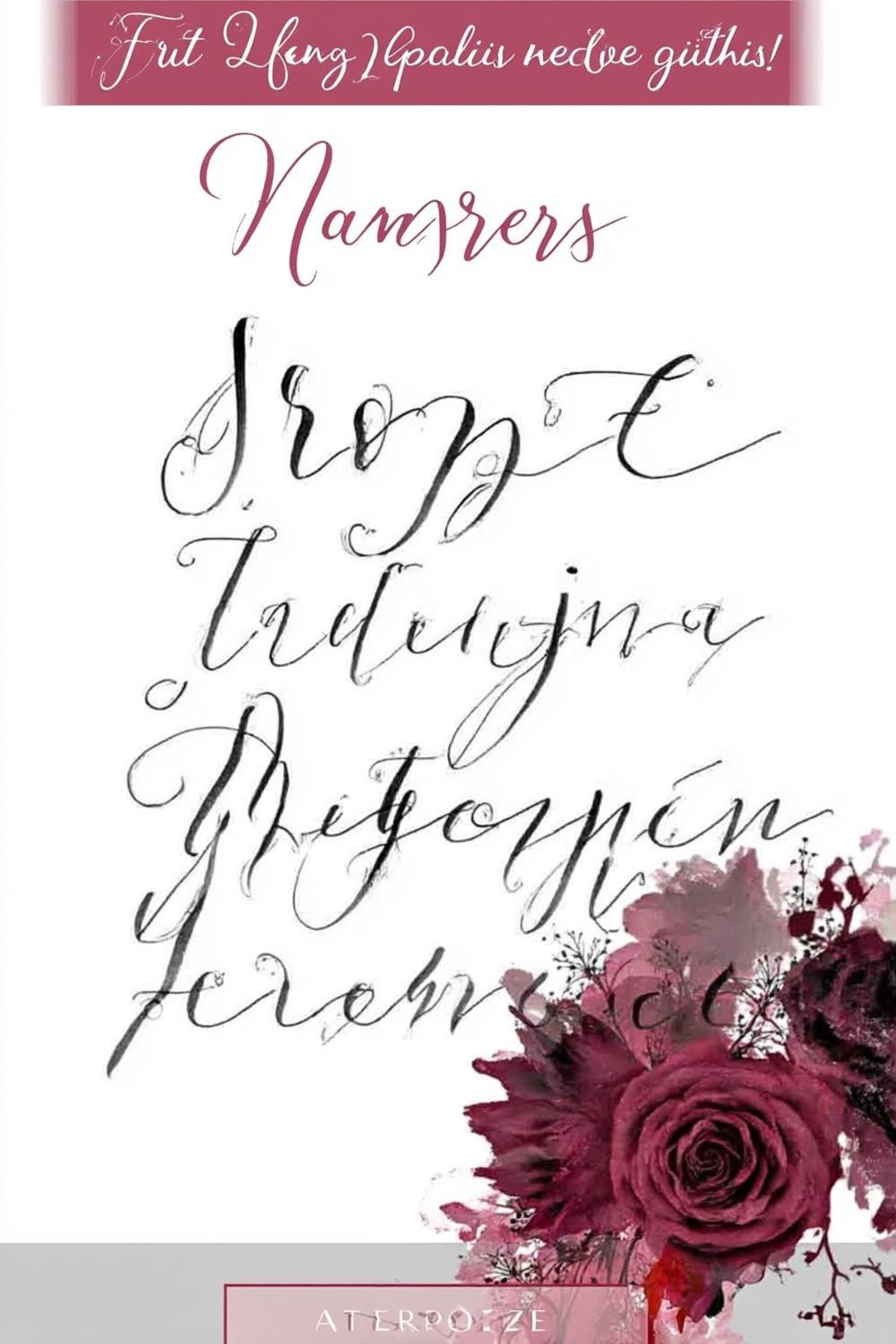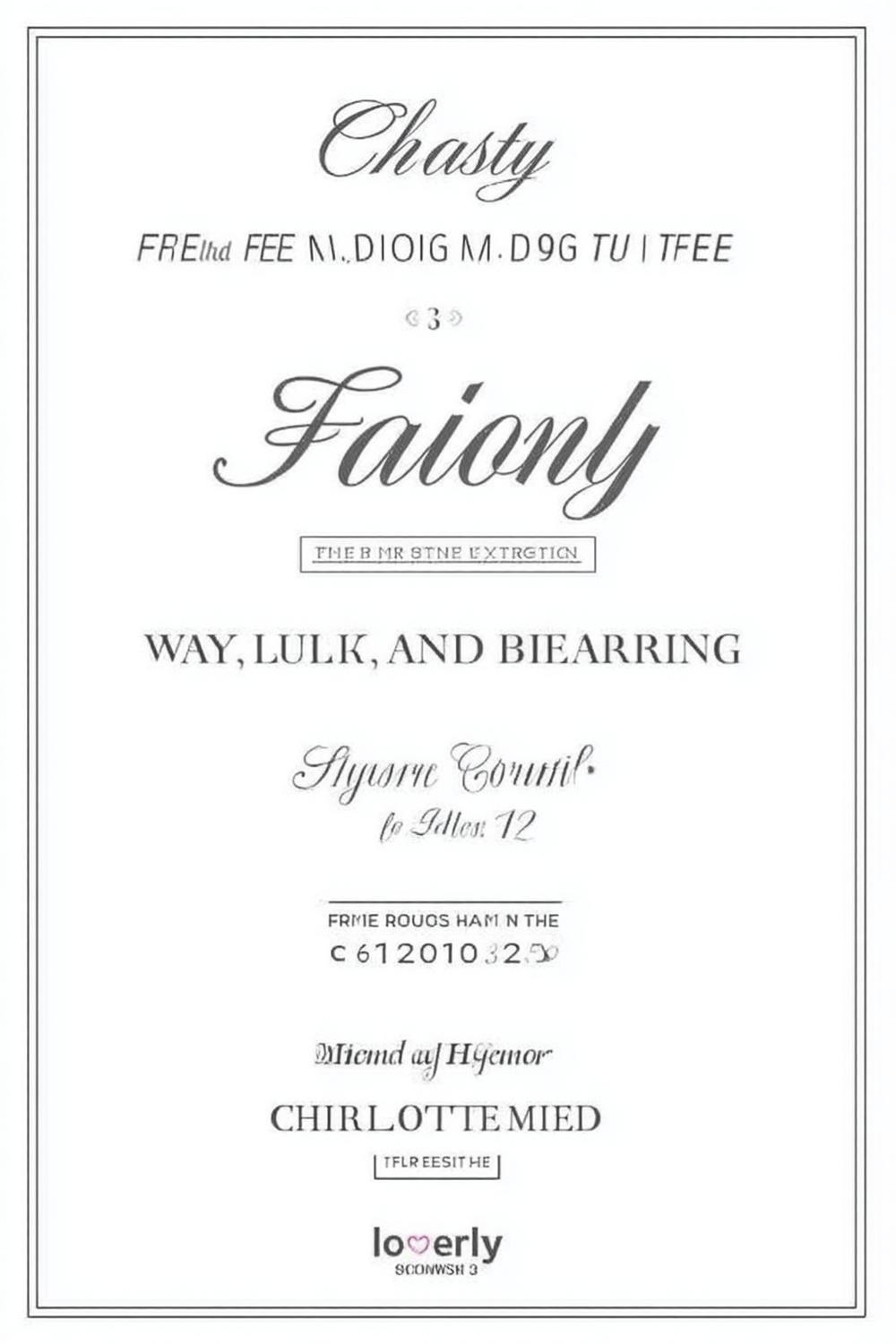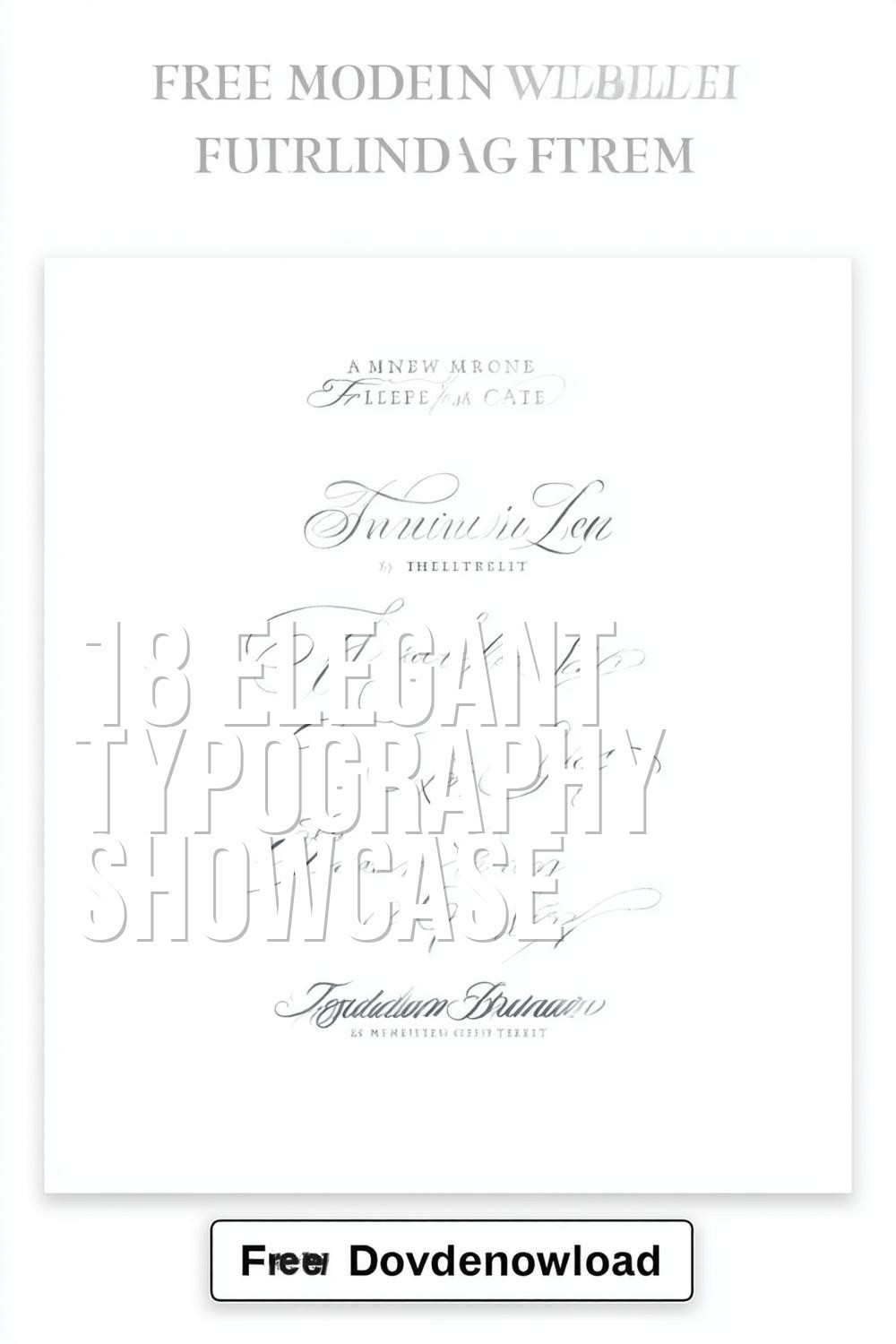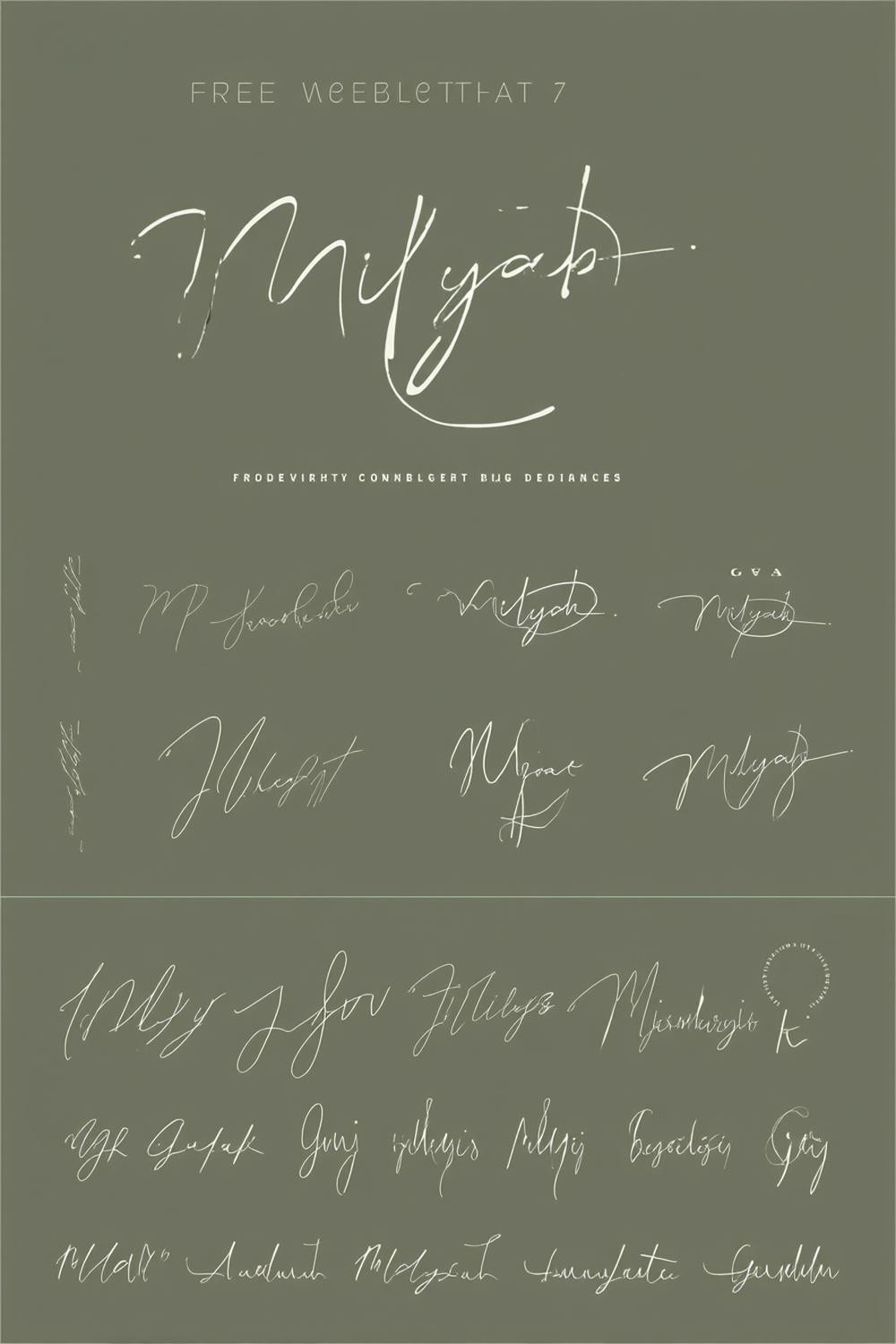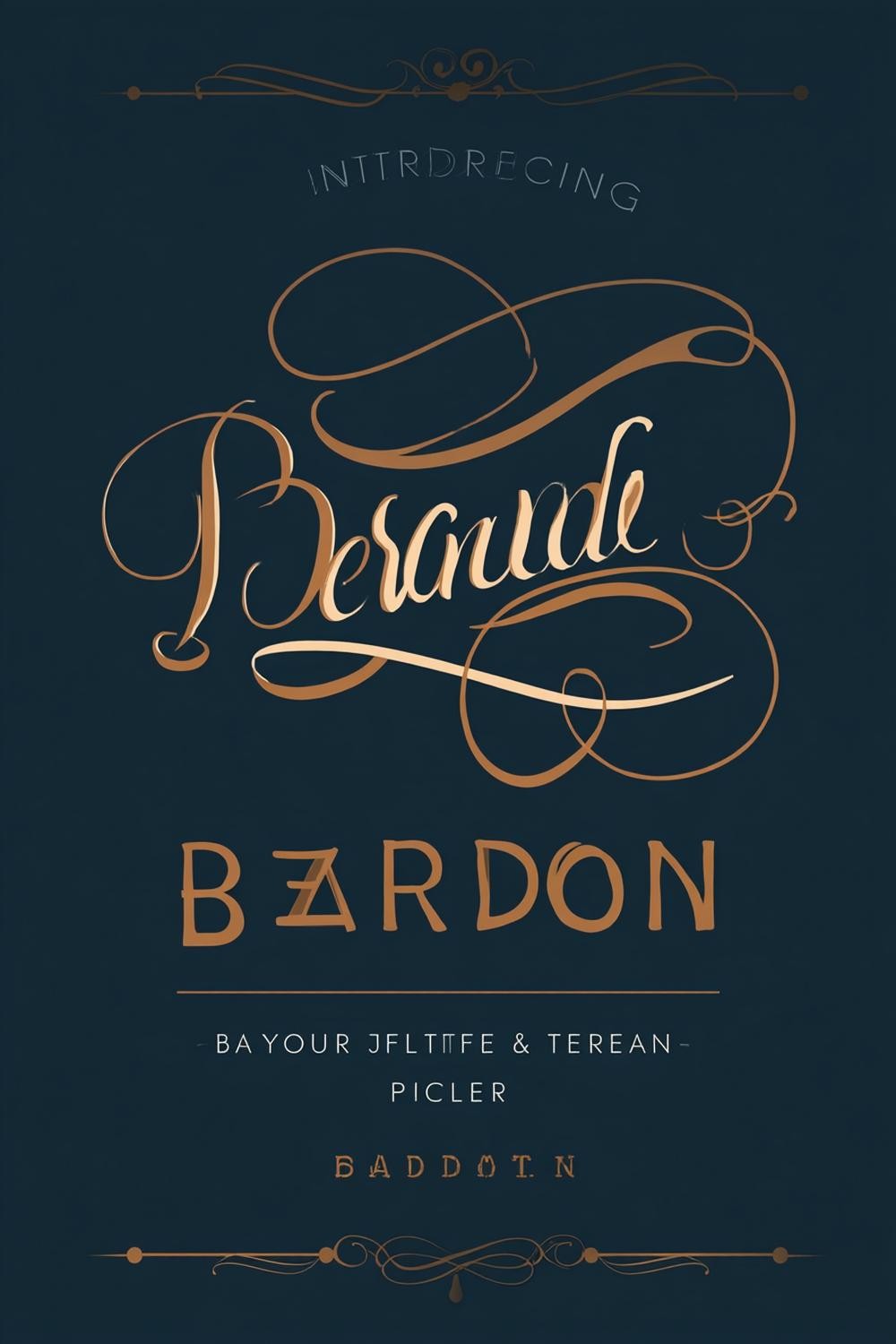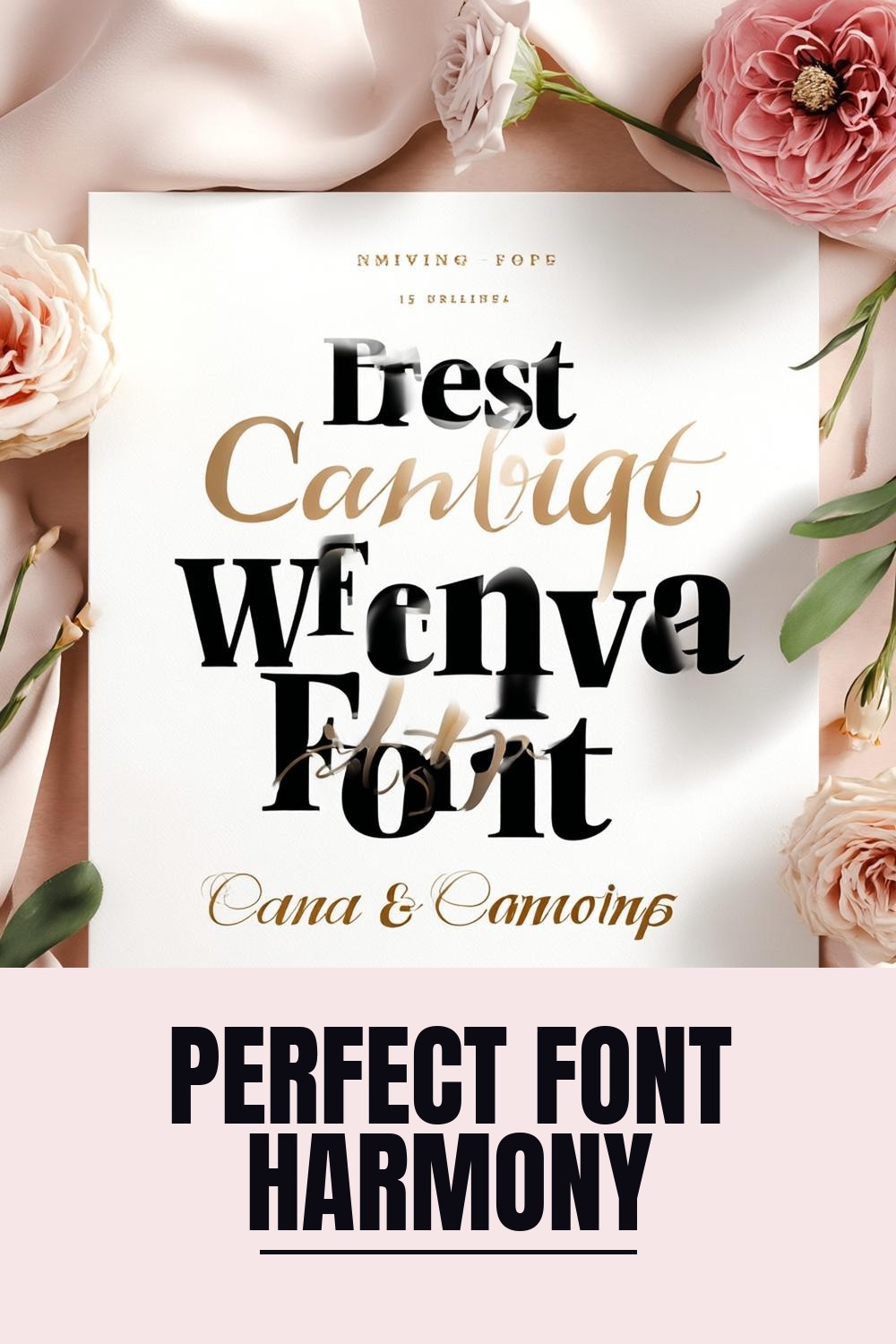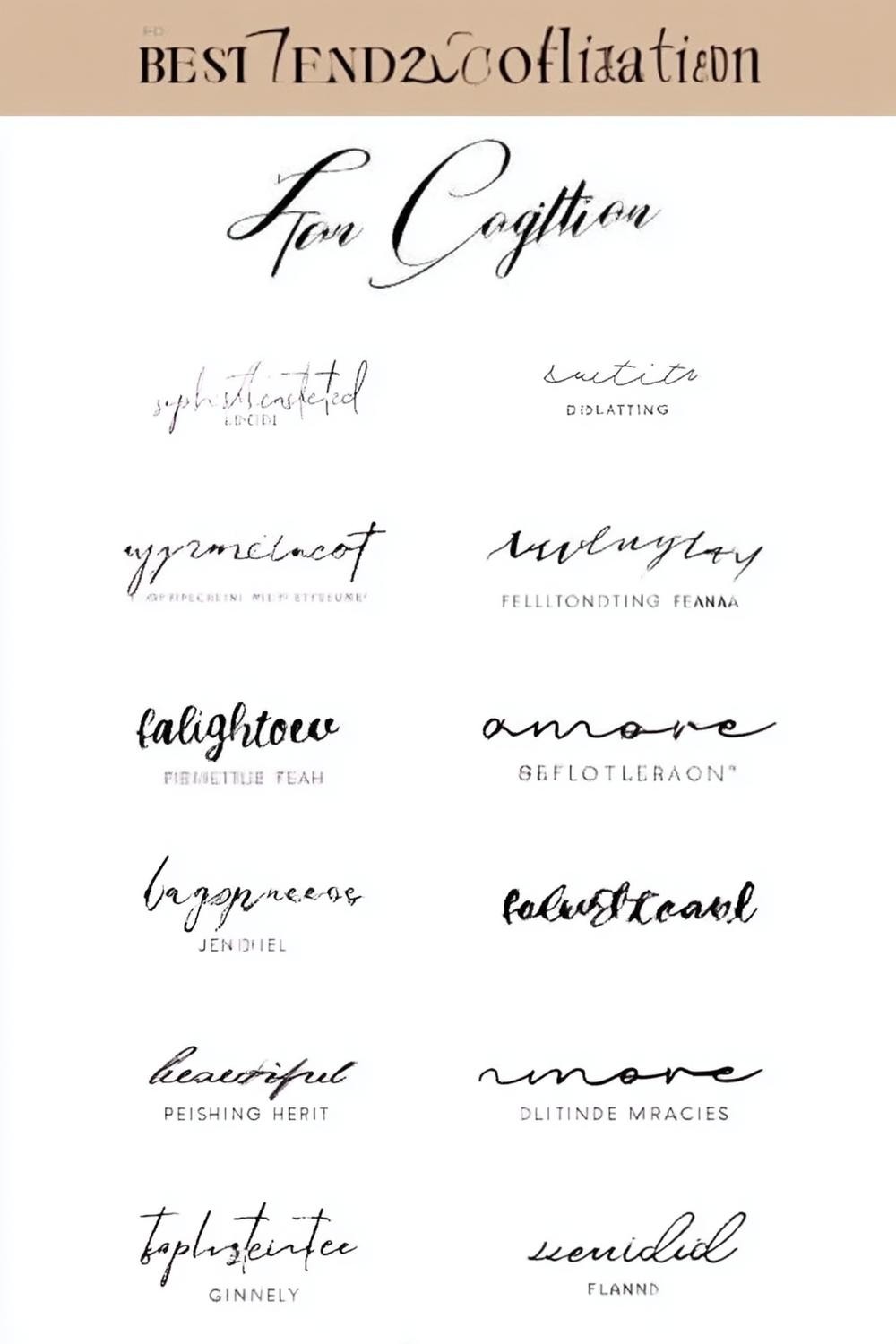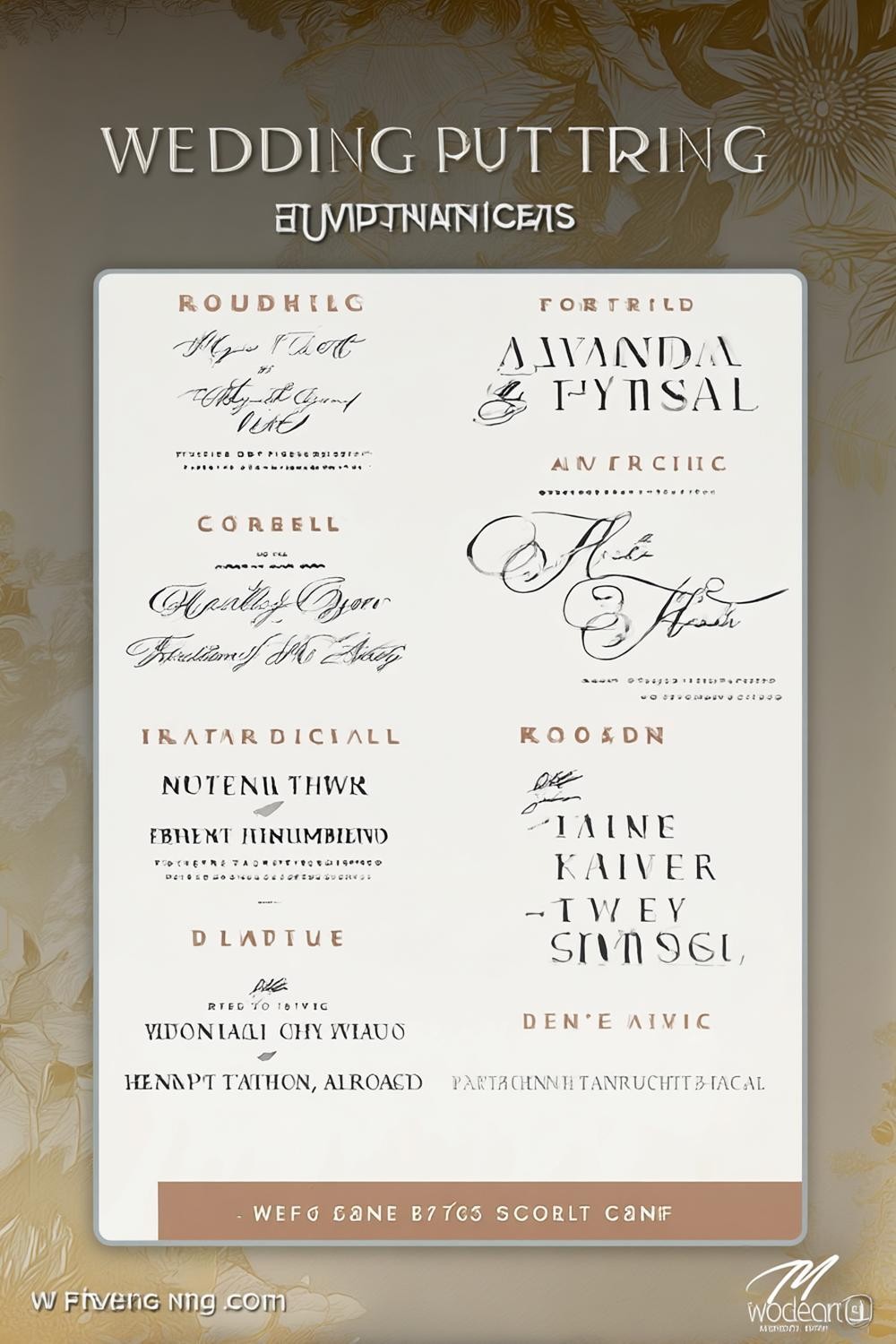
Transform your wedding stationery with this exquisite collection of 18 premium script fonts designed specifically for romantic celebrations. From flowing handwritten scripts to ornate calligraphy masterpieces, this typography bundle offers endless possibilities for creating stunning invitations, save-the-dates, and wedding signage. Each carefully curated font brings its own unique personality – whether you prefer delicate feminine touches or bold dramatic statements. Perfect for couples seeking affordable luxury, this comprehensive collection ensures your wedding materials capture the elegant, intimate atmosphere you've always envisioned. Discover how the right typography can elevate your love story and create lasting impressions for your special day.
Elegant Typography Showcase
This stunning collection showcases various calligraphy and serif fonts perfect for wedding stationery. I've always been drawn to how different typefaces can completely transform the mood of an invitation - from romantic script to classic elegance.
Handwritten Script Collection
The flowing handwritten style displayed here captures that personal, intimate feel every couple wants. From my experience designing invitations, script fonts like these work beautifully for names and romantic phrases, adding that authentic handcrafted touch.
Classic Typography Mix
This demonstrates the art of font pairing - combining elegant scripts with clean serif fonts. I love how the contrast creates visual hierarchy while maintaining sophistication. The key is balancing ornate elements with readable text for practical use.
Ornate Script Design
The elaborate flourishes and swirls in this design scream luxury and drama. While gorgeous for formal occasions, I'd recommend using ornate fonts like this sparingly - perhaps just for the couple's names to create a stunning focal point.
Perfect Font Harmony
This beautiful pairing shows how mixing script and serif creates perfect balance. The floral styling adds romance without overwhelming the typography. I always tell clients that successful font combinations should complement, not compete with each other.
Typography Layout Guide
This comprehensive guide demonstrates various font combinations in action. Having a reference like this is invaluable when designing wedding materials - it takes the guesswork out of pairing and ensures cohesive branding across all stationery pieces.
Trending Script Styles
These contemporary script fonts strike the perfect balance between modern and timeless. I've noticed couples increasingly gravitating toward these flowing, organic styles that feel both fresh and romantic - perfect for today's wedding aesthetic trends.
Romantic Couple Portrait
The golden script overlay on this intimate couple photo shows how typography can enhance photography beautifully. This technique works wonderfully for save-the-dates or thank you cards, creating a cohesive design that tells your love story.
Artistic Calligraphy Display
The watercolor rose backdrop perfectly complements this flowing calligraphy style. I love how the organic brushstrokes mirror the natural flower elements - it's a gorgeous example of how design elements should work together harmoniously in wedding stationery.
Sophisticated Script Specimen
This comprehensive font specimen shows both the script and its complete character set. Having access to the full alphabet helps designers understand how the font will work across different words and phrases - essential for creating cohesive wedding materials.
Affordable Luxury Typography
This promotional design cleverly combines stunning typography with real couple photography. The $8 price point makes professional-quality fonts accessible to budget-conscious couples who still want that high-end look for their wedding stationery.
Diverse Script Collection
This collection showcases the beautiful variety available in wedding typography. Each font has its own personality - from delicate and feminine to bold and dramatic. Having options like these ensures every couple can find their perfect typographic voice.
Urban Wedding Typography
The urban backdrop gives these romantic fonts a modern twist, perfect for city weddings. I love how this challenges the traditional floral-and-script combination, showing that wedding fonts can work in contemporary, metropolitan settings too.
Dreamy Script Overlay
The soft, dreamy script perfectly matches the romantic outdoor setting and flowing bridal gown. This style works beautifully for garden or destination weddings, where the typography should feel as natural and organic as the surroundings.
Dramatic Serif Display
This bold serif font makes a powerful statement against the dark background. While script fonts dominate wedding design, dramatic serifs like this can create stunning contrast and work beautifully for modern, minimalist wedding aesthetics.
18 Wedding Script Font Bundle: Elegant Typography Collection
Conclusion
This 18 Wedding Script Font Bundle represents the perfect solution for couples seeking professional-quality typography without breaking their budget. With styles ranging from delicate handwritten scripts to dramatic ornate calligraphy, every couple can find fonts that reflect their unique love story and wedding vision. The collection's versatility shines through its suitability for various wedding themes – from intimate garden ceremonies to modern urban celebrations. Complete with font pairing guides and comprehensive character sets, this bundle eliminates the guesswork in creating cohesive, elegant wedding stationery. At just $8, it delivers affordable luxury that transforms ordinary invitations into memorable keepsakes that perfectly capture your special day.